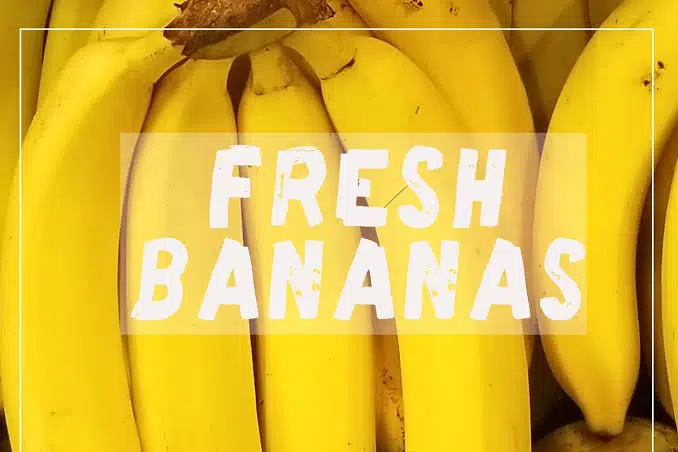
Fresh Banana Font
Fresh Banana Font is perfect for tropical branding, fruit smoothie shop logos, healthy food packaging, juice bar menus, organic grocery marketing, vitamin supplement labels, kids' nutrition materials, fun food blog headers, summer party invitations, and playful designs that celebrate natural energy, tropical vibes, and the cheerful deliciousness of fresh healthy fruits.
This font is exciting because it captures the vibrant energy and natural cheerfulness of fresh bananas through fun, playful letterforms that feel instantly appetizing and uplifting. The lively character design radiates sunshine, tropical warmth, and the simple joy of wholesome natural foods, making it perfect for projects that promote healthy living, natural nutrition, and the delightful sweetness of fresh produce.
The Fresh Banana Font family typically includes uppercase and lowercase characters, numerals, punctuation marks, fruit-themed decorative elements, and playful glyphs that enable designers to create energetic compositions with tropical freshness and healthy appeal.
Whether you're designing for health food businesses, creating appetizing nutrition content, or developing brand identities for establishments celebrating natural wellness and tropical freshness, Fresh Banana Font Free Download provides the perfect typographic expression of natural vitality. Its cheerful character and tropical energy make every project feel more inviting and wholesome, ensuring your designs effectively convey freshness, health benefits, and the delightful natural goodness that fuels healthy lifestyles with delicious tropical flavor.